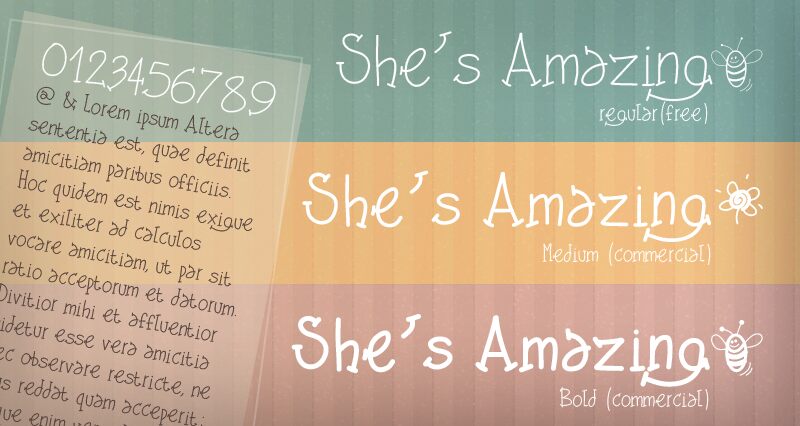
PW She's Amazing by Peax Webdesign is a free handwritten font with tall, slender letters and a loose, lively silhouette. Its strokes shift gently in width, with rounded curves set against sharp peaks and long verticals. Uneven proportions make the lettering feel quickly drawn and personal.
Packaging is a natural setting for its informal line, especially on cosmetics, gifts, and handmade goods. In posters and children's publishing, the towering letters can become part of an illustration, echoing doodled scenery.